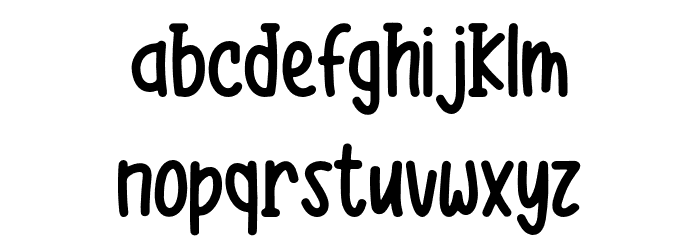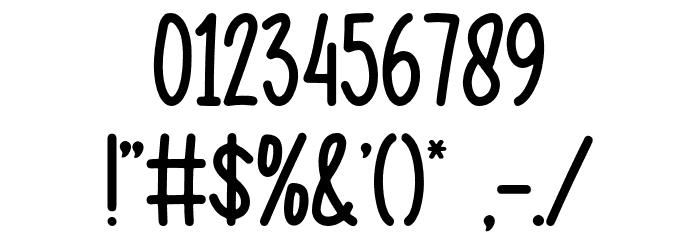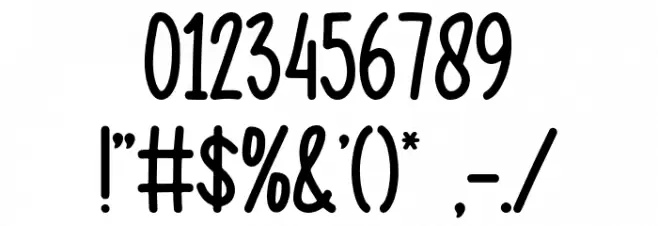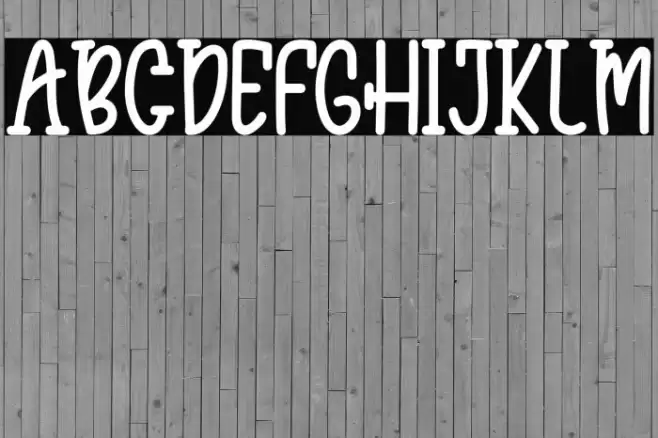
Black Moon Font
This font features a playful and whimsical style with a handwritten appearance. The characters are rounded and slightly irregular, giving it a casual and friendly vibe. The uppercase letters are bold and prominent, while the lowercase letters maintain a consistent flow with a slight slant, enhancing its informal look. The numbers and special characters are designed to match the overall style, ensuring a cohesive appearance across all text elements. This font is versatile and can be used in various creative projects that require a touch of personality and charm.
A playful, handwritten font with a casual and friendly vibe.
- Font: Black Moon
- Proposed Projects: Ideal for greeting cards, children's books, playful branding, and social media graphics.
- Category: Handwritten
- Overall Style: Playful
- Use Case: Headlines, Logos, Informal Text